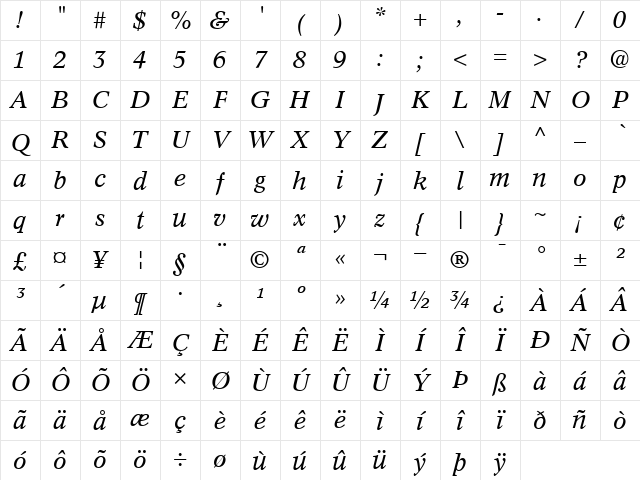
Concorde Italic
Design Context for Concorde
Concorde is a composed and adaptable typeface that performs quietly and consistently across a wide range of design contexts. The slanted form adds forward momentum and visual energy.
Pro Tip: Use Concorde for emphasis, pull quotes, and subheadings where its slanted energy can add rhythm to the layout.